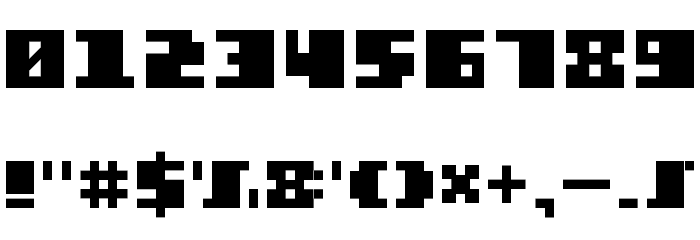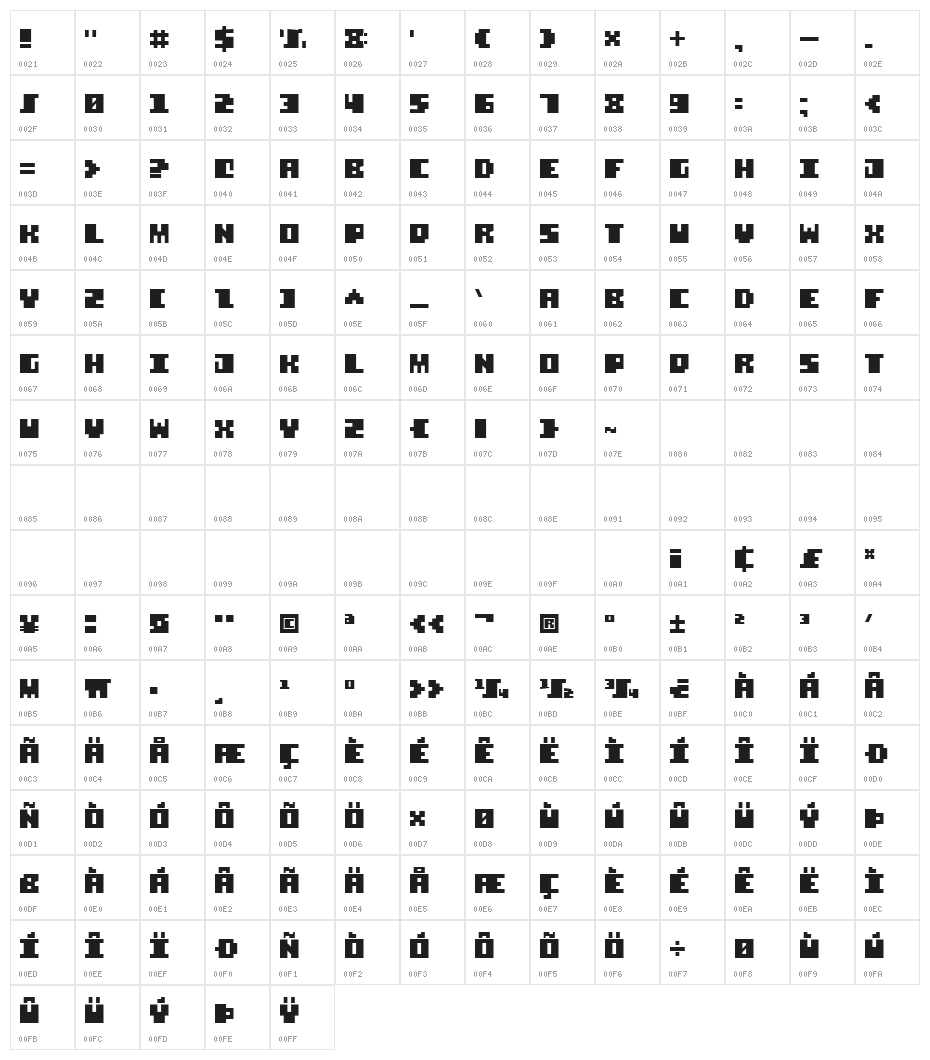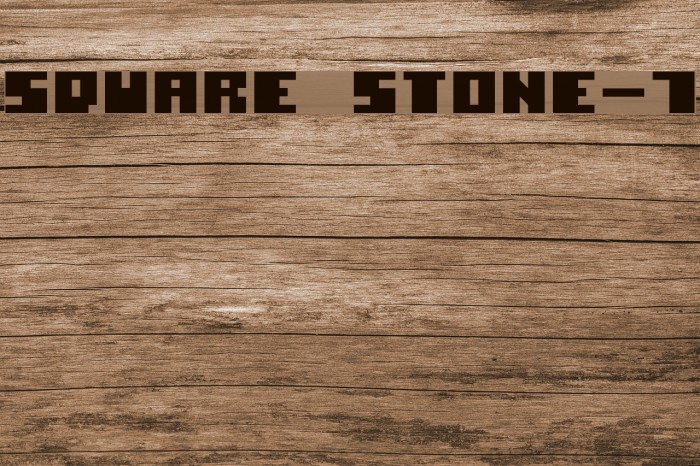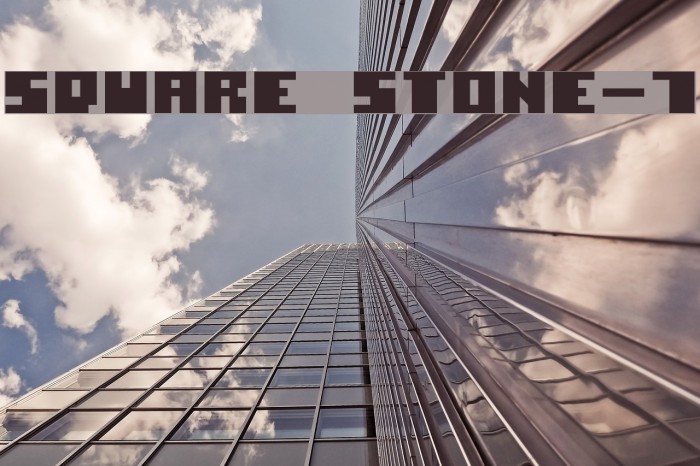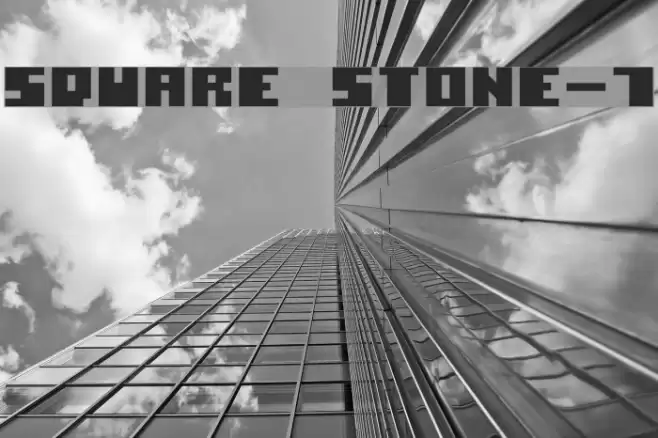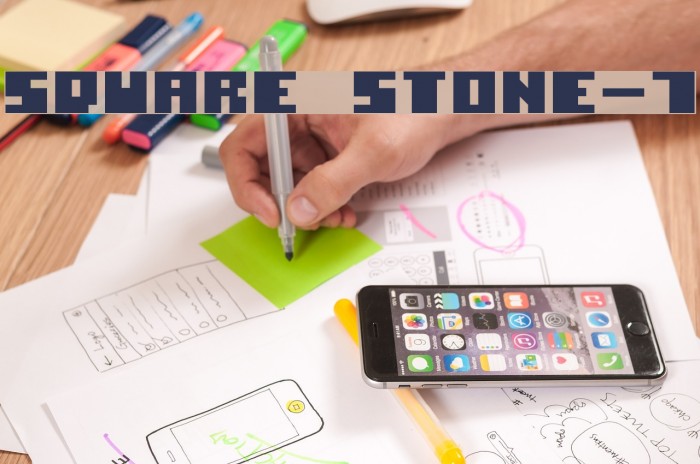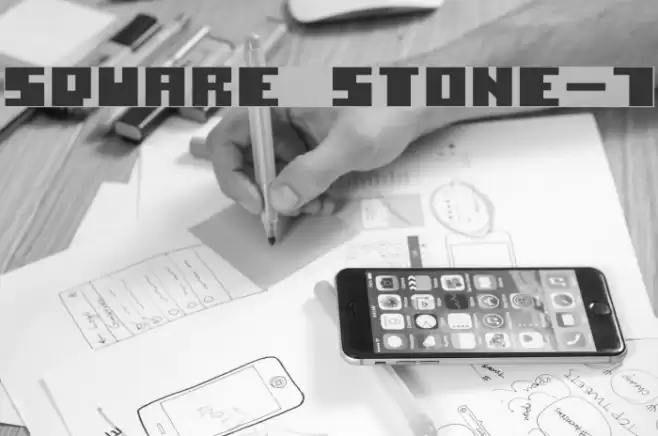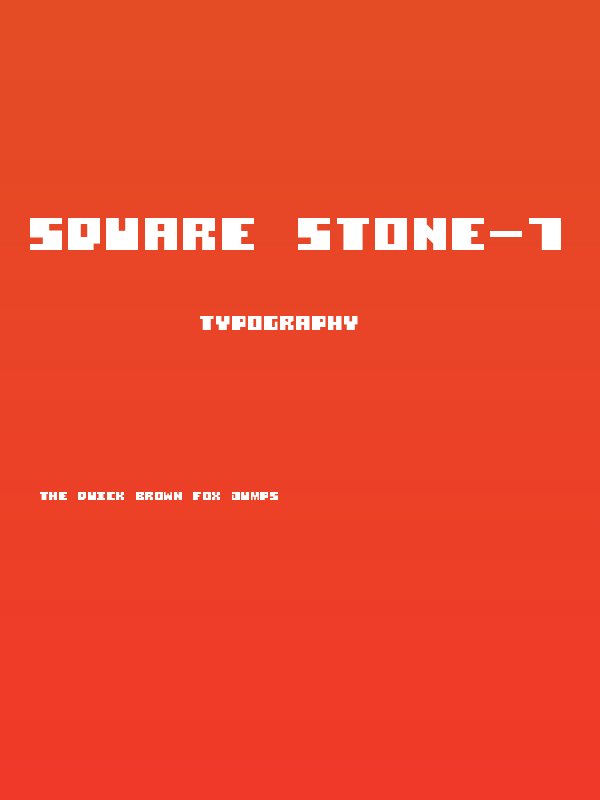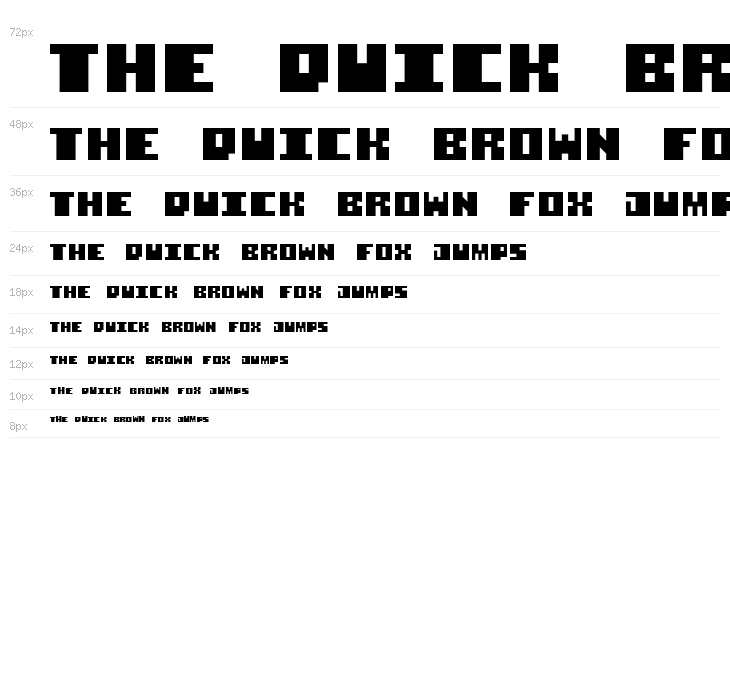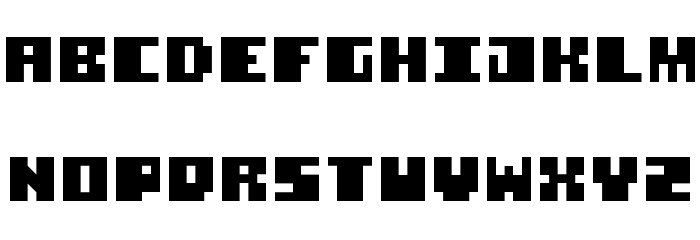
Square Stone-7 Font
Square Stone-7 Description
This font features a bold, geometric design with a distinctly blocky appearance. Each character is constructed with sharp angles and straight lines, creating a uniform and cohesive look. The uppercase and lowercase letters maintain a consistent height, contributing to the font's strong visual impact. The numbers and special characters are designed to match the boldness and angularity of the alphabet, ensuring a seamless integration across all characters. This font's style is reminiscent of digital or pixelated text, making it ideal for projects that require a modern and edgy aesthetic.